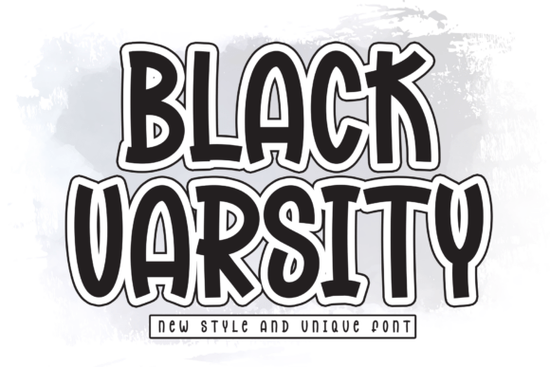
If you’ve ever designed a sports jersey, a school poster, or anything with a classic athletic feel, you know the right lettering can make all the difference. Black Varsity Font captures that bold, blocky energy you see on varsity jackets and stadium banners but with a cleaner, more modern outline. It’s thick enough to read from across the room, yet playful enough to work on everything from t-shirts to digital banners. Whether you’re a print-on-demand seller or a hobbyist making team merch, this font delivers the loud-and-proud look without the fuss.
How does Black Varsity Font differ from standard varsity fonts?
Most varsity fonts go for a chunky, solid look. Black Varsity adds a consistent outline stroke that makes each letter pop, especially on dark backgrounds or when you layer colours. The letters are still wide and bold, but the double-line effect gives it a sporty, retro badge vibe. It’s also well-spaced, so it works for short headlines, names on uniforms, or single-word logos. If you’ve tried other styles like Dusty Cowboy for a western feel, you’ll notice Black Varsity is more angular and clean perfect for when you need that collegiate punch.
What kinds of projects work best with Black Varsity?
This font shines in any project where you need instant impact. Here are a few real-world examples:
- T-shirt and hoodie designs – The outline helps resist legibility issues when screen printing on dark fabric.
- Team logos and mascot names – Pair it with a simple icon and you’ve got a cohesive look for a local club or school.
- Banners and posters – Thick letters read well from a distance, even at smaller sizes.
- Social media graphics – Use it for call-to-action buttons or event highlights; the weight keeps it from getting lost on mobile screens.
If you’re working on something that needs a playful twist like a carnival flyer or a retro arcade poster this font fits right in without feeling too serious. The outline adds a slight 3D effect that works nicely when you want to layer a second colour inside the letters.
Each of these will give you a different flavour while staying in the display font category. If you’re building a brand around sporty or school-related products, Black Varsity is still the most direct choice.
Tips for using varsity fonts like a pro
- Keep letter spacing tight – Varsity fonts are already wide. Too much space between letters can look disjointed. Use kerning to close it up slightly.
- Stick to two colours at most – The outline effect works best when the fill and outline contrast. Avoid adding gradients or shadows that muddy the shape.
- Pair it with a clean sans-serif – For subtext or body copy, something simple like Arial or Montserrat won’t compete with the bold display lettering.